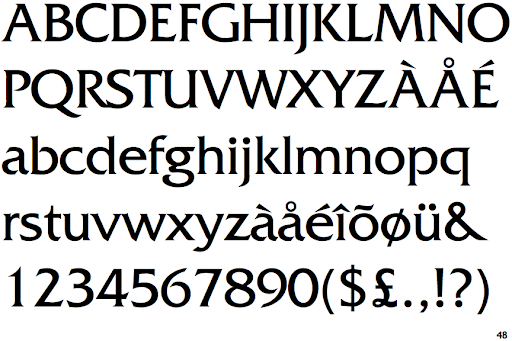
Appealing for display work, friz quadrata is also appropriate for short texts, headlines, and industrial design projects. Friz quadrata was designed by victor caruso, ernst friz, thierry puyfoulhoux and published by itc.
Adobe hide show add to favorite download. The first weight was created by swiss designer ernst friz and made its first international appearance with the design release of visual graphics corporations. Friz quadrata is a typeface first designed in 1965 by ernst friz with later styles contributed by victor caruso and thierry puyfoulhoux.
Itc then arranged with vgc so that victor caruso could add a. The design features flared serifs and distinctive open bowls on the lowercase characters such as the “a”, “b”, “d”, “p” and “q.” Woff is supported in chrome versions 5+.
Ernst friz and victor caruso took the charge for designing and releasing it for the first time during 1965 via visual graphics corporation. Download friz quadrata bold os font. It features glyphic serif typeface text forms.